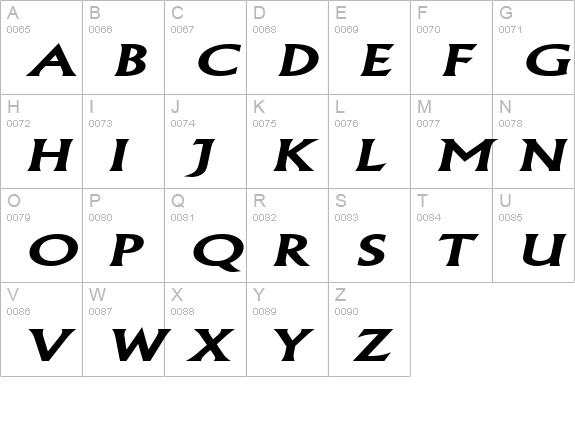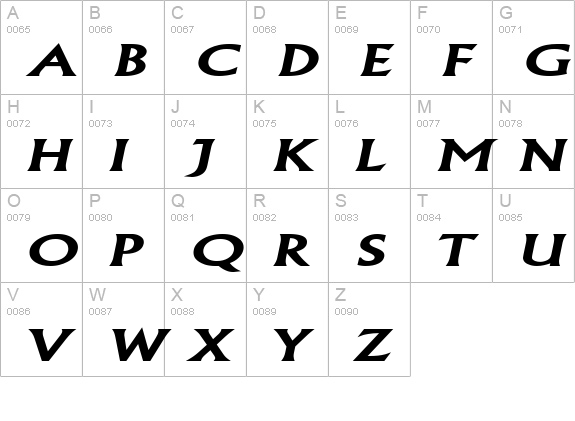
Flair Extended BoldItalic Font Details
Flair Extended BoldItalic is a distinctive, extended-width variant in the Flair typeface family \xE2\x80\x94 well suited to design and typography projects.
Flair Extended BoldItalic font is a stunning and versatile typeface that exudes elegance and sophistication. With its bold and italic design, this font is perfect for making a statement and adding a touch of flair to any project. The sleek curves and sharp edges of Flair Extended BoldItalic make it ideal for headings, logos, and other design elements that require a bold and eye-catching look. What sets Flair Extended BoldItalic font apart is that it is not only visually striking but also free to download. Yes, you heard that right! This exceptional font is freely available for download at FontsMarket.com, making it accessible to all designers and creatives looking to elevate their projects with a touch of style and sophistication. Don't miss out on the opportunity to enhance your designs with the elegance and flair of Flair Extended BoldItalic font. Download it today and unleash your creativity!